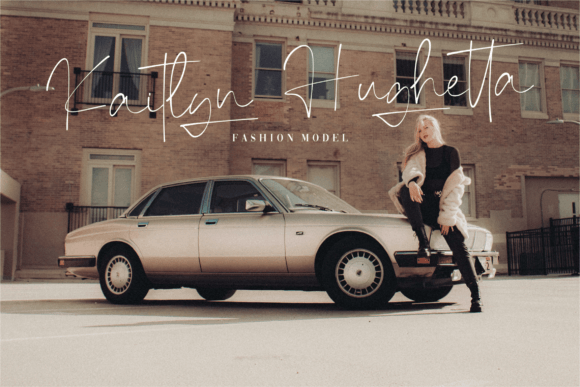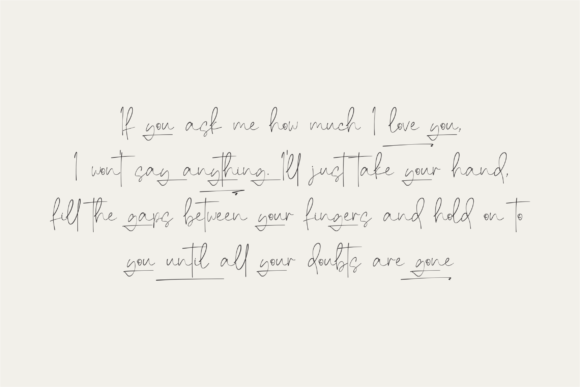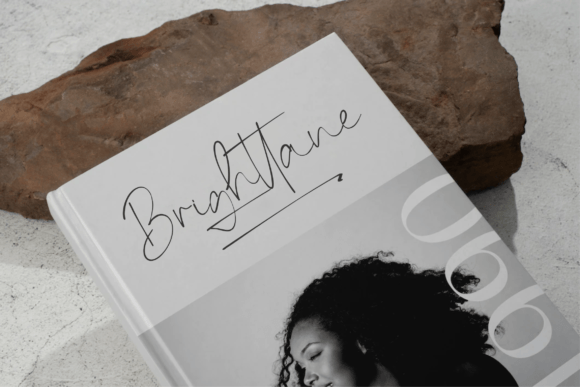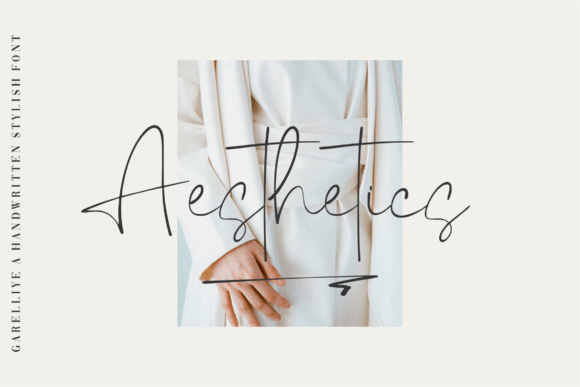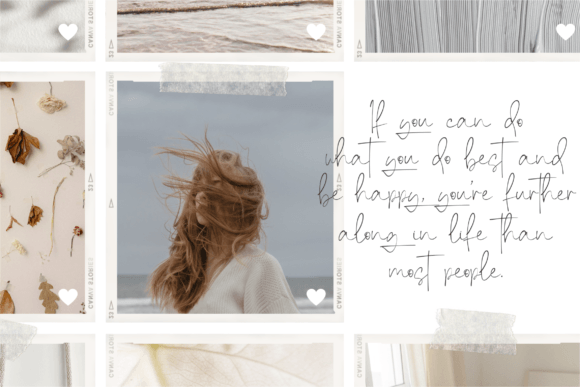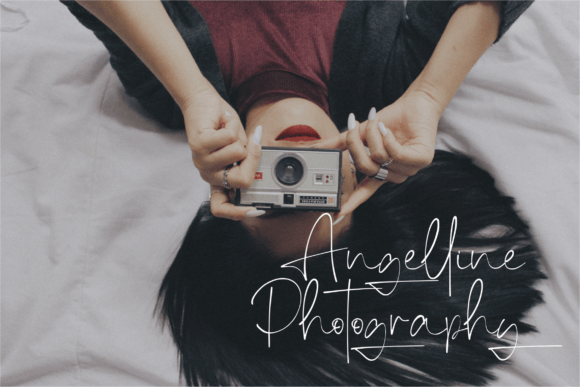
Introduction to Garelliye Font
Have you ever found yourself stuck in a creative rut, struggling to bring your latest project to life? You’ve poured your heart and soul into the design, but something’s just missing. Maybe it’s the perfect font, the one that captures the essence of your brand or adds that extra touch of personality to your product packaging. For designers, the right font can be the difference between a good design and a great one.
Enter the Garelliye Font, a stylish handwritten font designed to elevate your creative projects to new heights. With its masterful design, this font has the potential to become a true favorite among designers, offering a versatile solution for everything from branding projects to social media and weddings.
Key Features of Garelliye Font
- Unique, hand-drawn design ideal for creative projects requiring a personal touch.
- Includes a range of creative and stylish characters, perfect for adding a touch of elegance to your design.
Honest Review: Garelliye Font
As a designer, I’m always on the lookout for high-quality design resources to elevate my creative projects. The Garelliye Font caught my attention with its unique style and versatility.
What works well for me is the font’s elegant and modern design, making it perfect for a variety of projects, from wedding invitations to corporate branding.
- ✨ High-quality design with crisp lines and clear typography.
- ✨ Great for creating visually appealing text overlays with its transparent background feature.
- ⚠️ Limited character set, which might not be suitable for projects requiring extensive text content.
- ⚠️ Not suitable for projects that require extreme font scaling, as it may lose its clarity.
Overall, I’m impressed with the Garelliye Font’s unique design and high-quality features. While it may have some limitations, it’s an excellent choice for designers looking for a stylish and modern font for their creative projects.
Tips for Getting the Most Out of Garelliye Font
To get the most out of the Garelliye Font, try experimenting with different font sizes, colors, and styles. You can also combine it with other design elements to create unique and eye-catching designs. The transparent background makes it easy to use in a variety of design projects, from logos to graphics and typography.
The Garelliye Font is a versatile design resource that can be used in a variety of creative projects, including logos, graphics, typography, and presentations. It’s a great choice for designers looking for a high-quality, free download font with a transparent background.